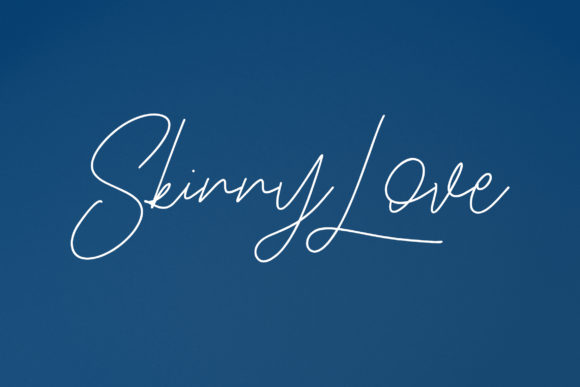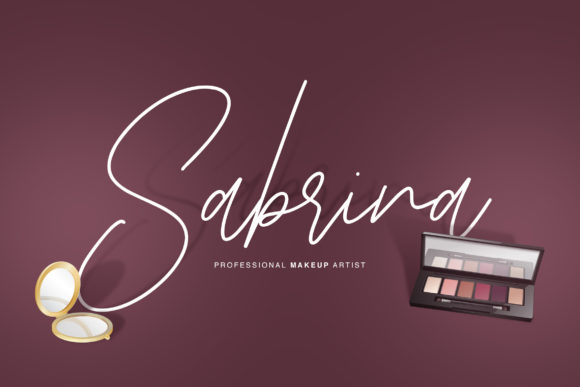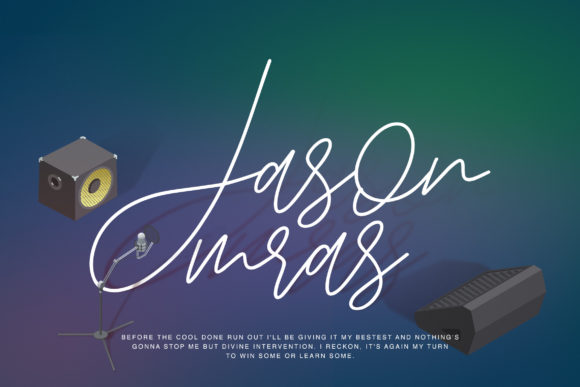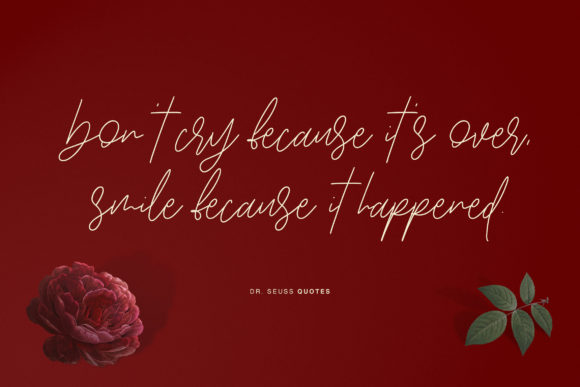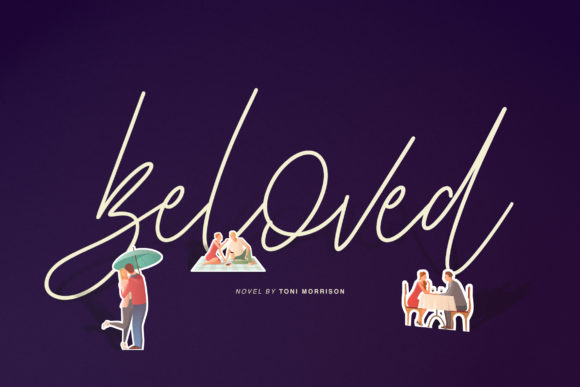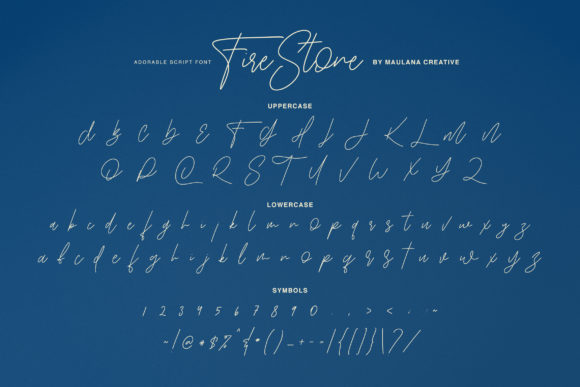
Introduction to Fire Stone Font
Fire Stone is a cool and playful handwritten font with bold energy.
Get inspired by its authentic vibe .
Key Features of Fire Stone Font
Why Choose Fire Stone Font?